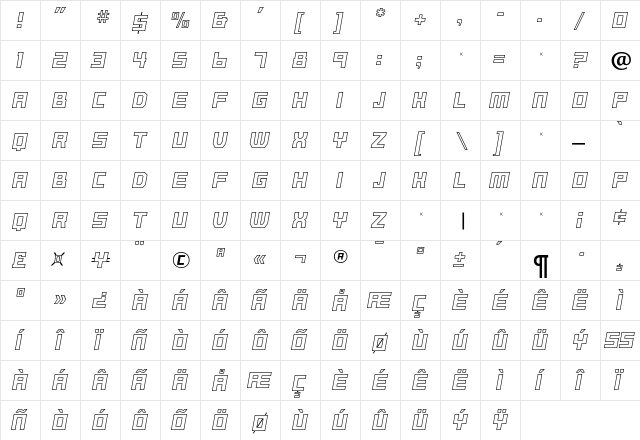
BassetRR Regular
Design Context for BassetRR Typeface
BassetRR is a composed and adaptable typeface that performs quietly and consistently across a wide range of design contexts.